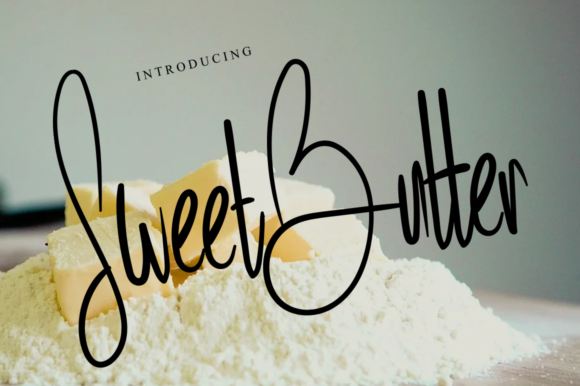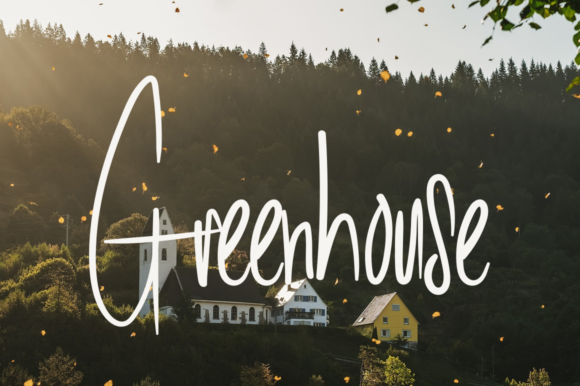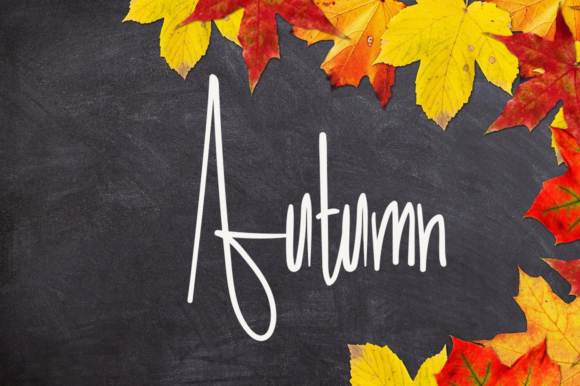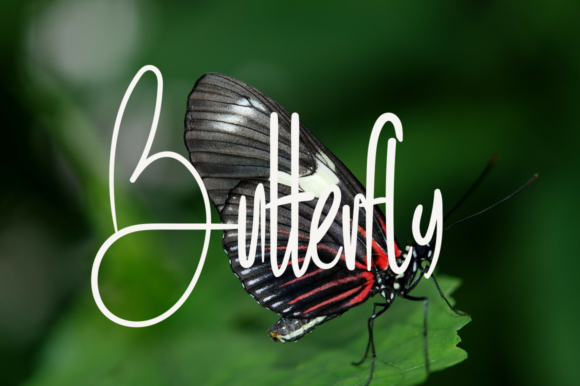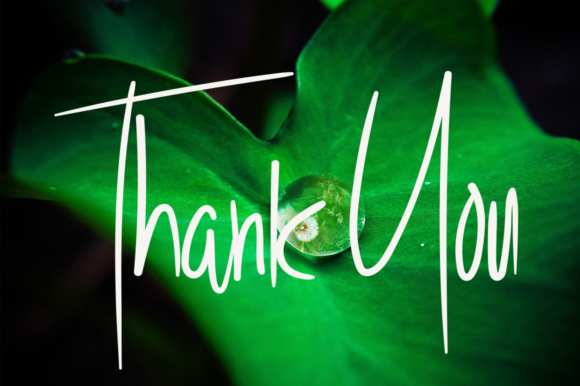
Sweet Butter Font
About Sweet Butter Font
Sweet Butter is a dainty, thin and cursive handwritten font. This gentle font will look gorgeous on a variety of design ideas. It will add a joyful and romantic touch to each of your projects!